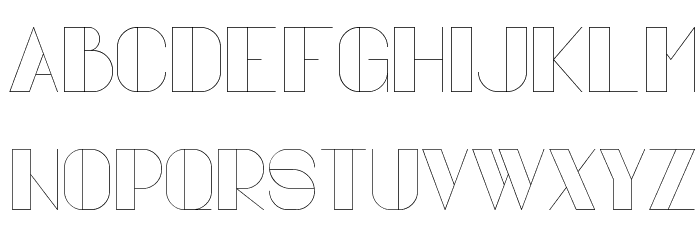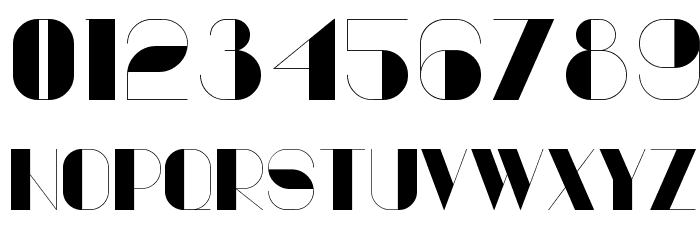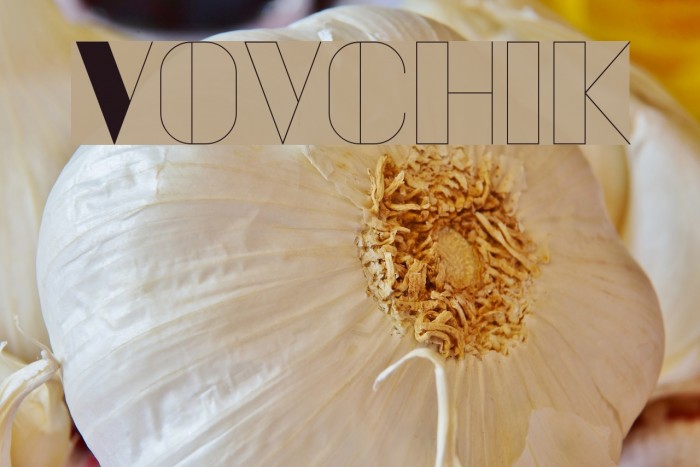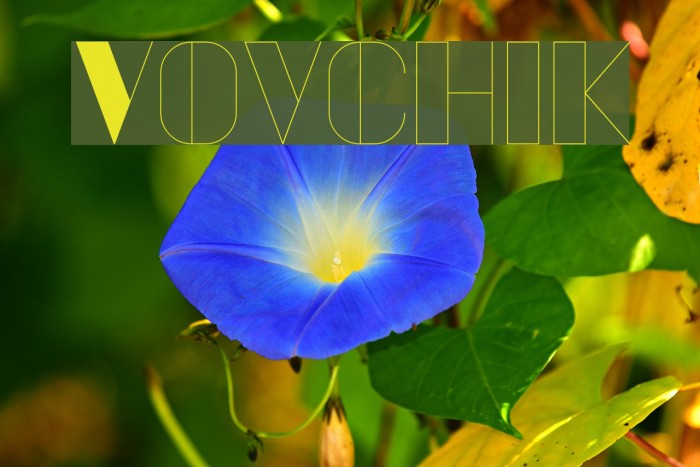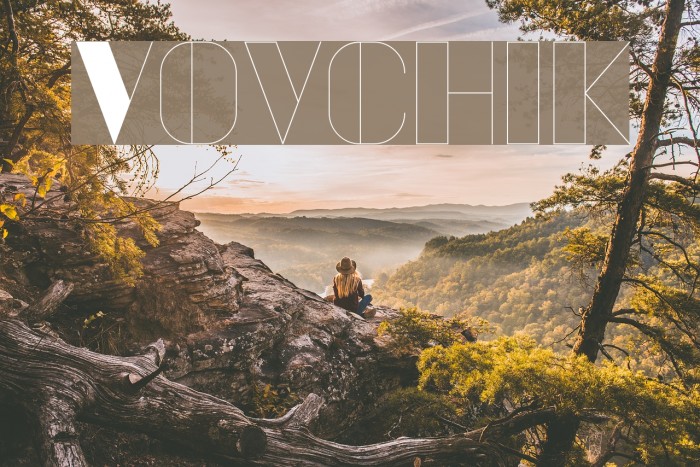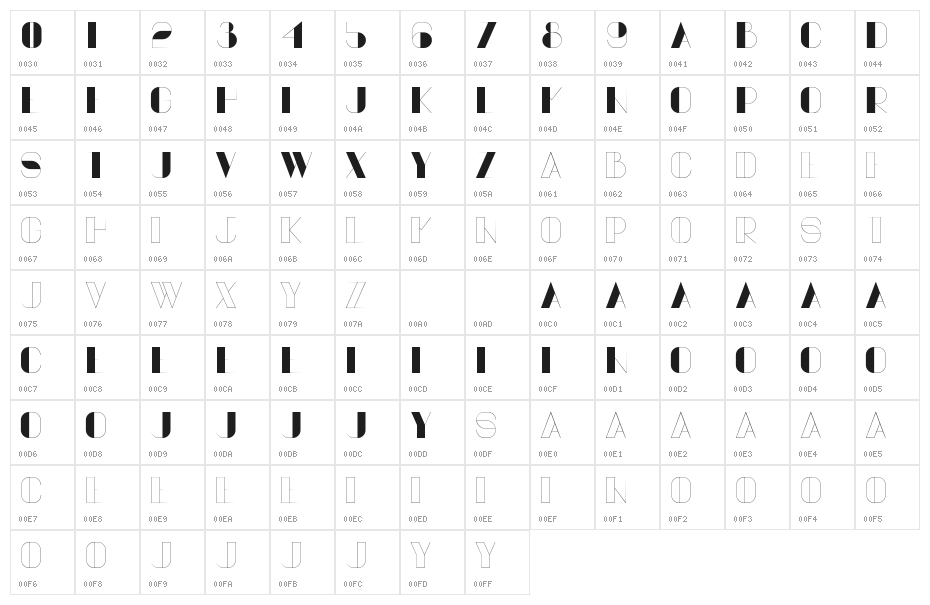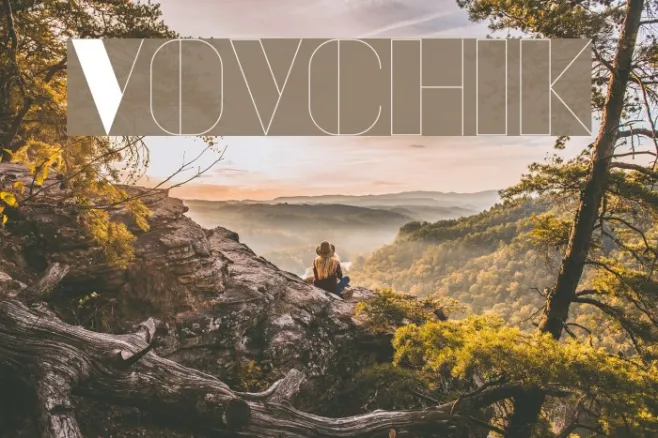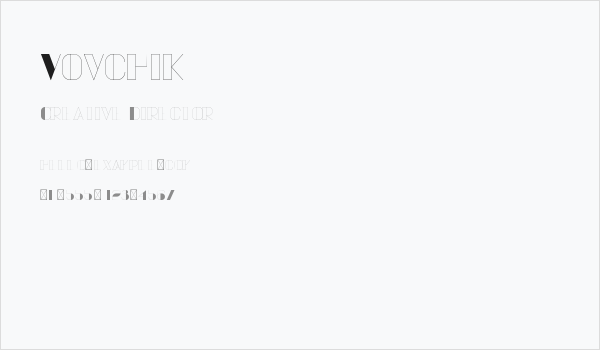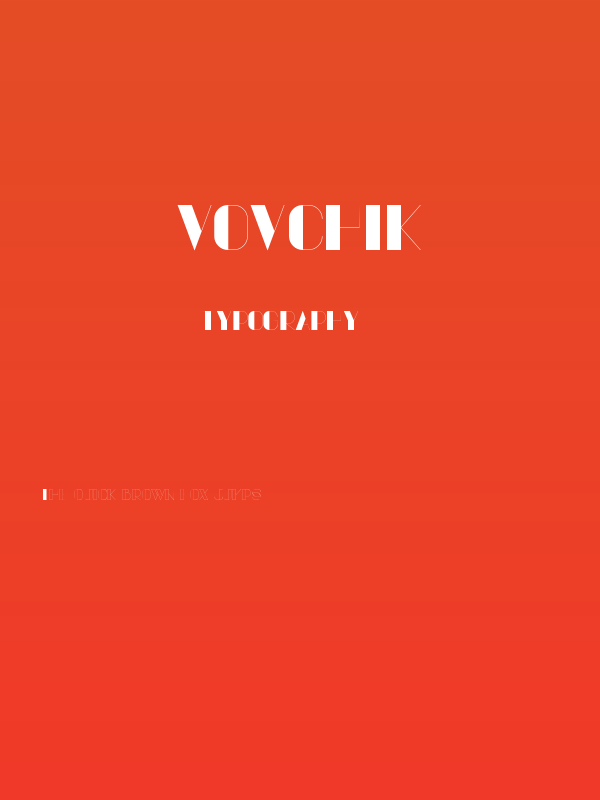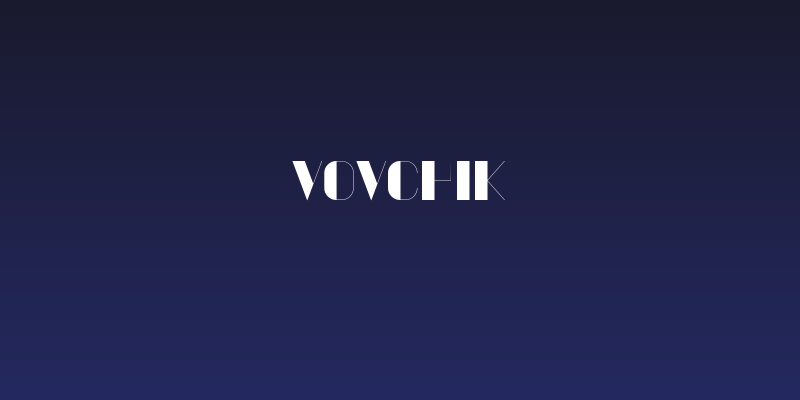
Vovchik Font
This font features a striking combination of bold and thin lines, creating a high-contrast and modern aesthetic. The uppercase letters are designed with a mix of solid and outlined forms, giving a unique and artistic flair. The numbers follow a similar pattern, with some digits appearing more filled and others more skeletal. This duality in design makes it visually engaging and suitable for creative projects. The characters are evenly spaced, maintaining a balanced and harmonious appearance.
A modern, high-contrast font with a mix of bold and thin lines.
- Proposed Projects: Ideal for branding, posters, and editorial design where a contemporary and artistic touch is desired.